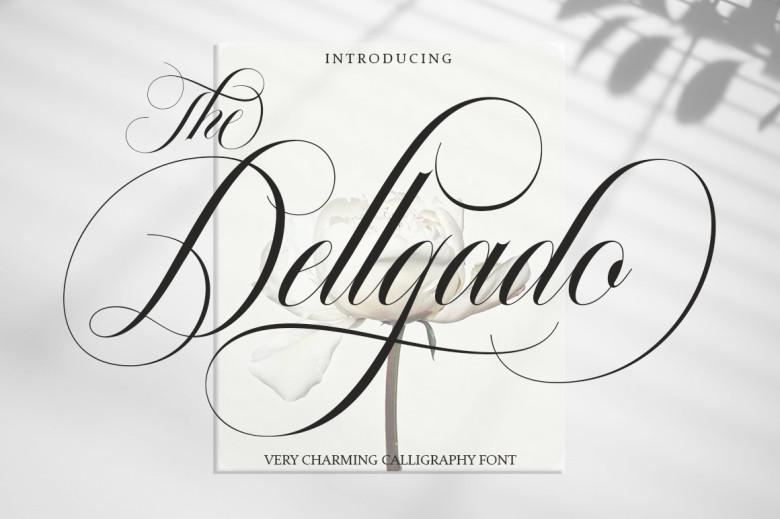
The Dellgado Font
Dellgado font is an elegant and beautiful. Perfect for wedding invites, thank-you cards and quotes, greeting cards corporate cards logos or any other design needing handwritten accent. Additionally, the font is PUA encoded so it is easily able to access all characters and strokes!
The Dellgado Calligraphy Font